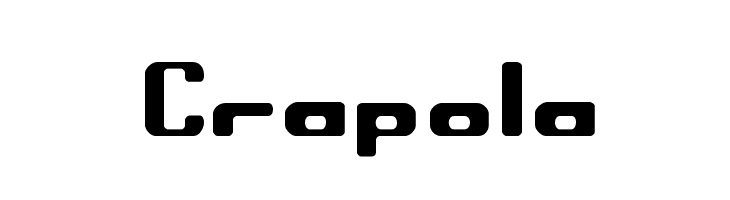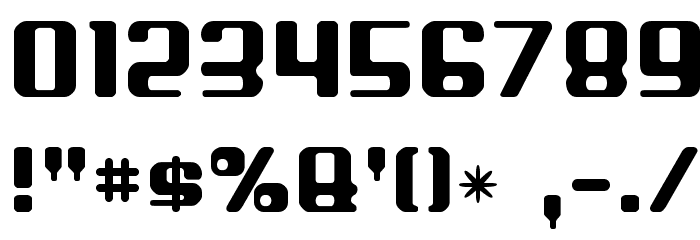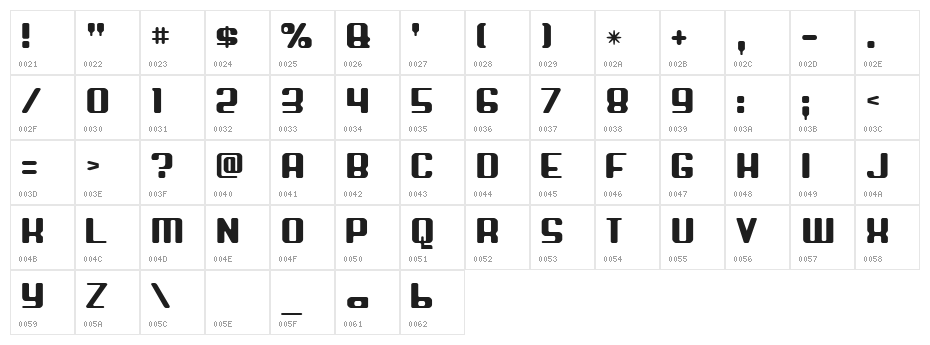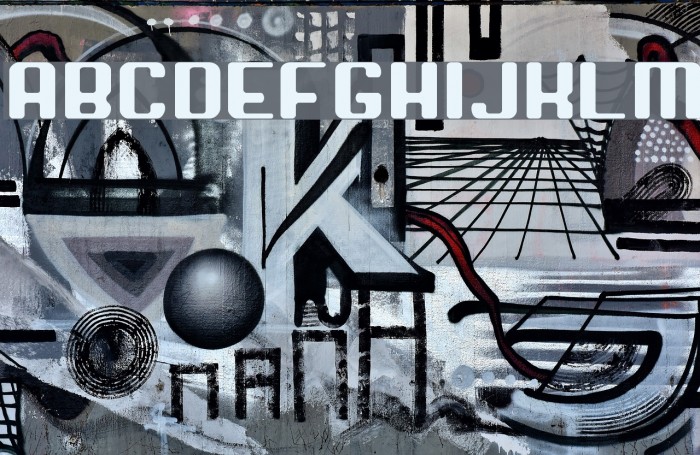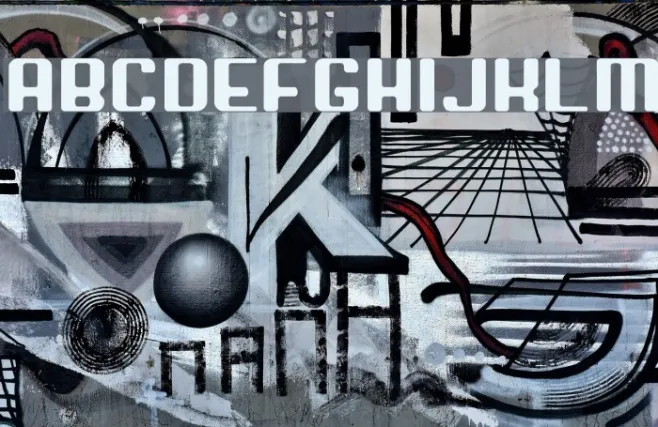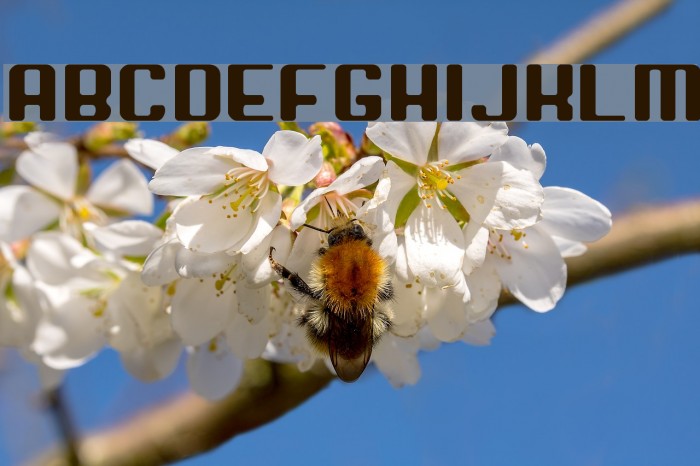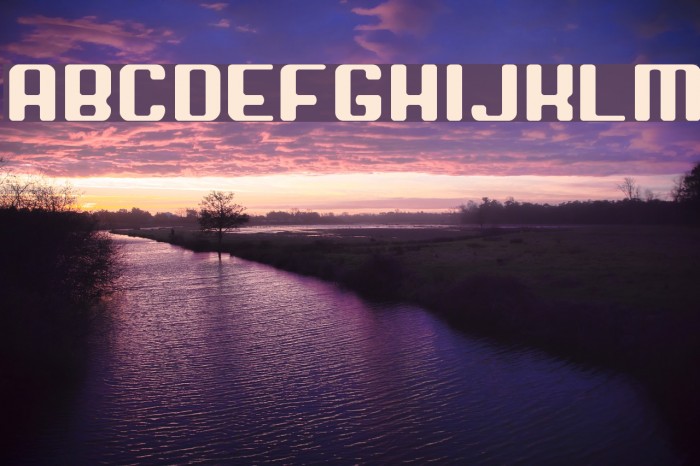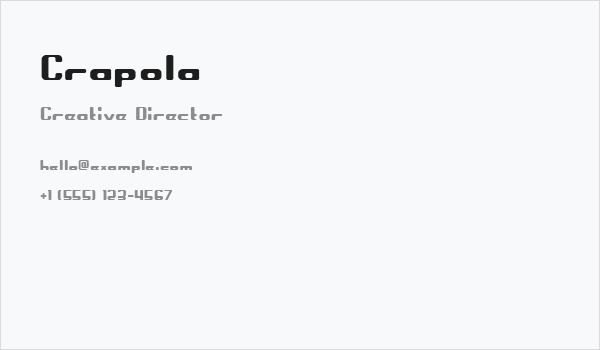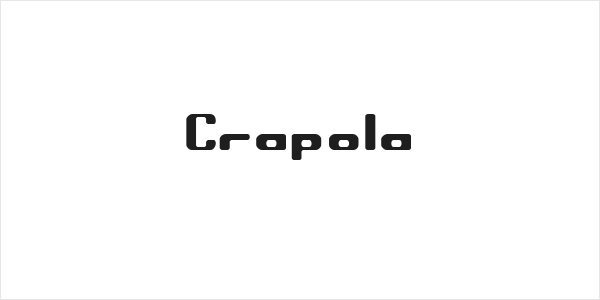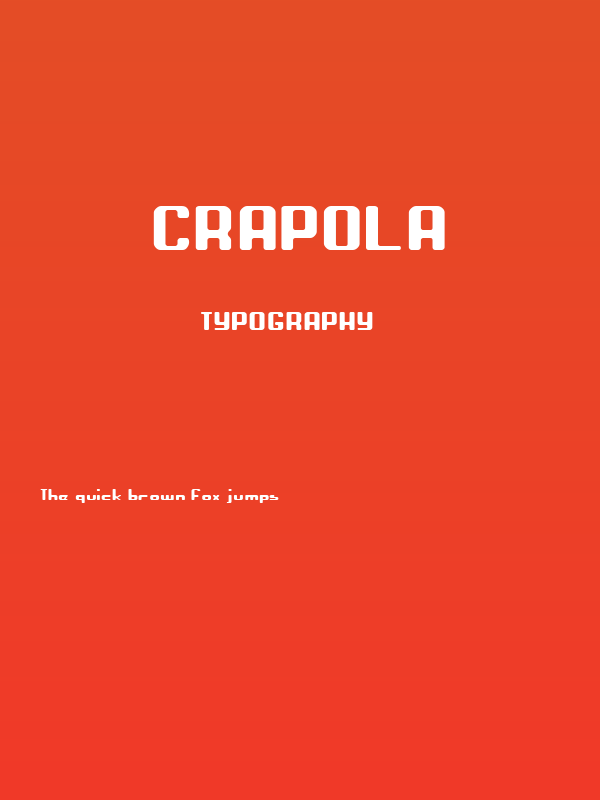
Crapola Font
Crapola Description
This font features a bold and rounded style with a modern, futuristic aesthetic. The characters are uniformly thick, giving them a strong presence. The rounded edges soften the overall look, making it approachable while still maintaining a sense of authority. The uppercase and lowercase letters are distinct, with the lowercase having a slightly more playful appearance. Numbers and special characters are consistent with the overall design, ensuring readability and style continuity. This font is ideal for projects that require a modern and bold statement.
| Proposed Projects | Ideal for branding, headlines, posters, and digital media that require a strong, modern look. |